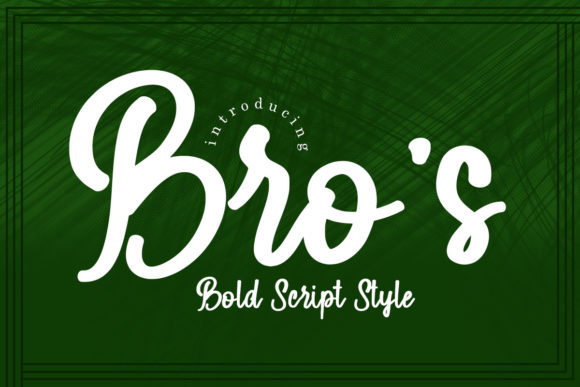
Embrace the artistry of Bro's Font, a captivating script font that dances across the digital canvas, leaving a trail of charm and playfulness. Its characters, like graceful ballerinas pirouette along the baseline, adding a touch of whimsy to your design endeavors.
Unleash your creativity with Bro's Font, a font family that embodies the free-spirited nature of artistic expression. Its elegantly crafted characters, flowing seamlessly from one to another, lend a touch of sophistication to any project, be it a fashion label, a personal journal, or a heartfelt invitation.
With Bro's Font, transform your words into visual masterpieces. Its enchanting curves and delicate strokes add a layer of depth and dimension to your designs, capturing the attention of your audience and leaving a lasting impression.
Step into a world of boundless creativity, where words dance and letters sing. Bro's Font is the perfect companion for fashion enthusiasts, designers, and anyone who seeks to infuse their projects with a sense of joy and whimsy. Its versatility shines through in logos, branding, social media posts, and any creative pursuit you can imagine.
Don't let ordinary fonts limit your imagination. Embrace Bro's Font, the key to unlocking a world of enchantment and artistic expression. Its charming, playful characters will make your designs come alive, captivating your audience and leaving them spellbound.